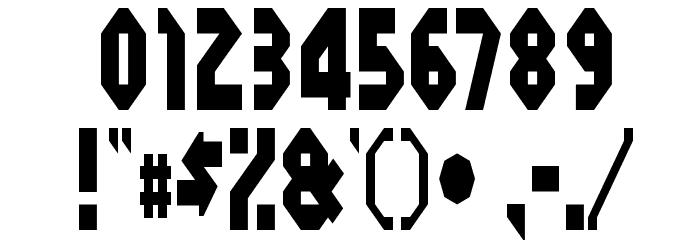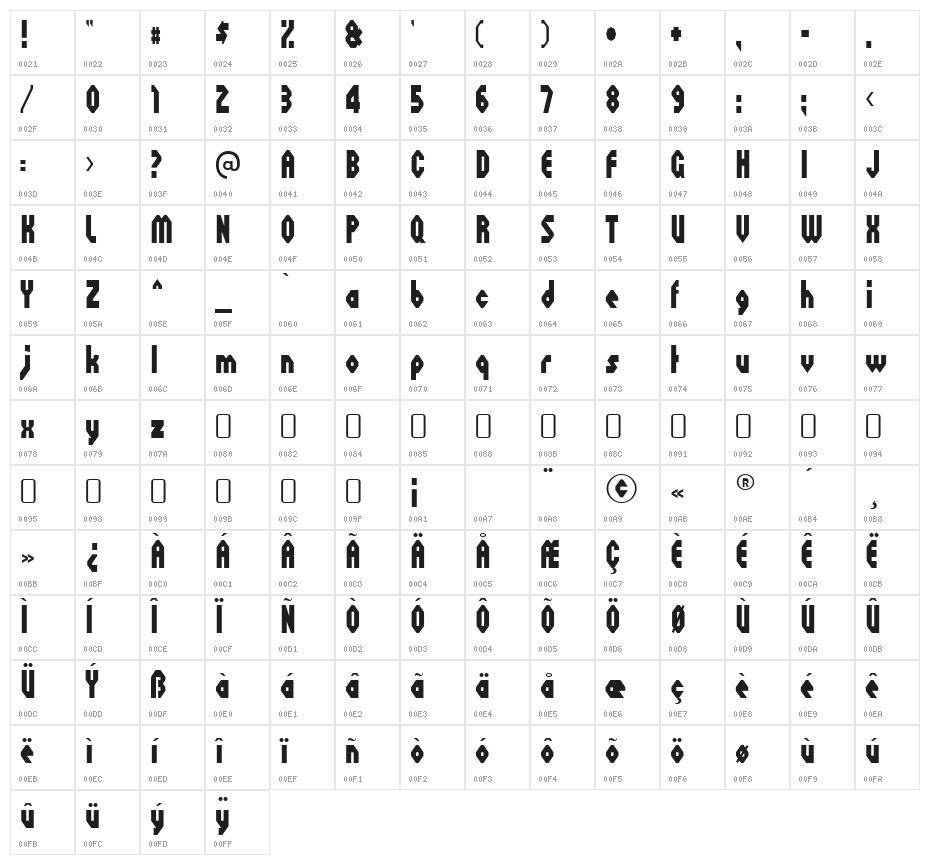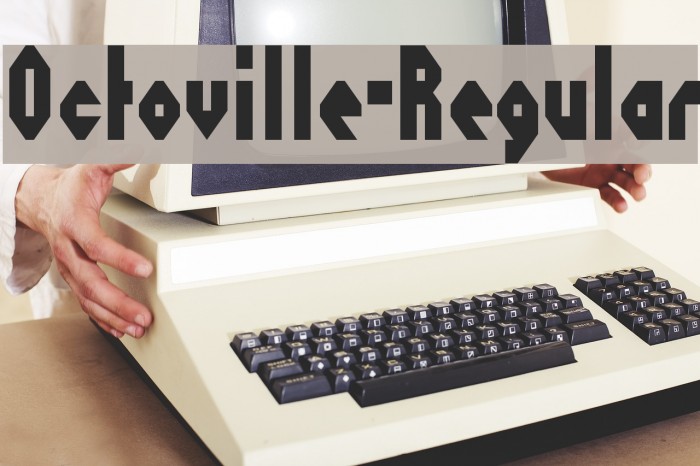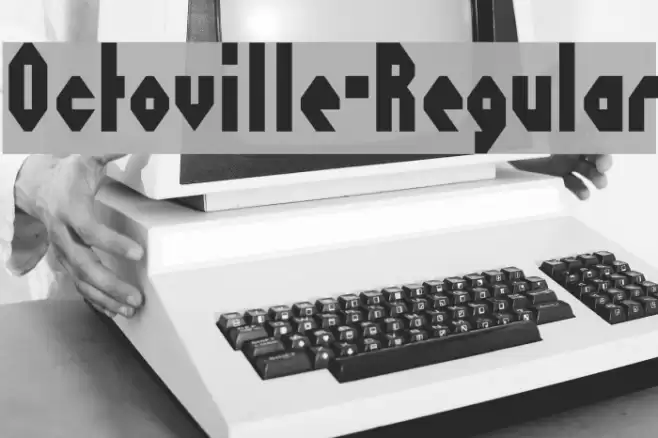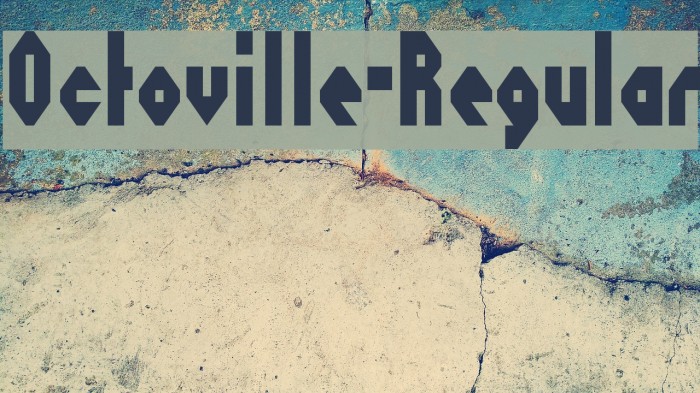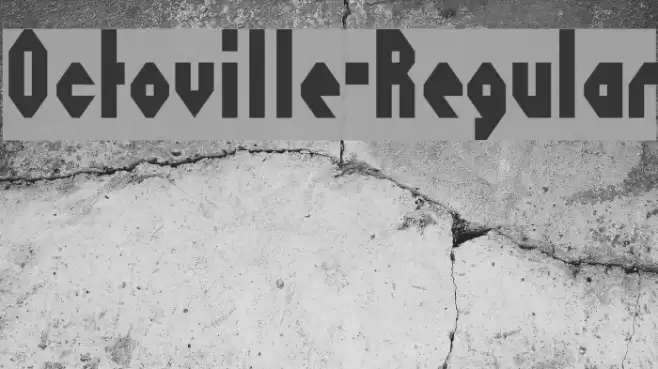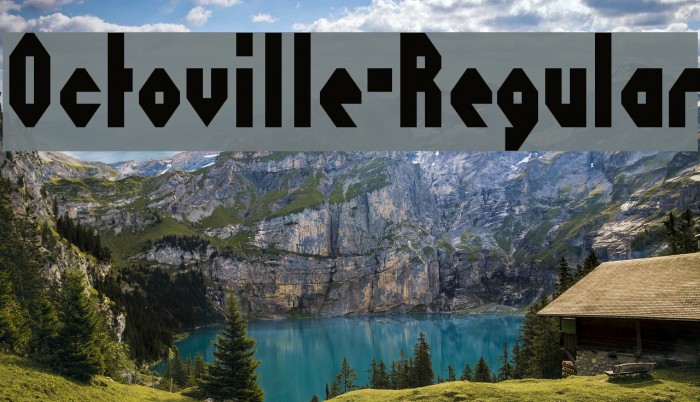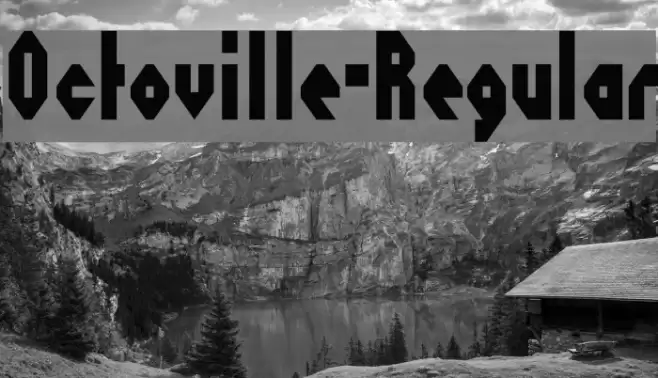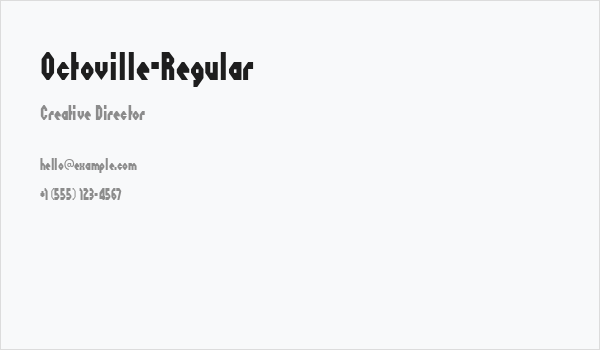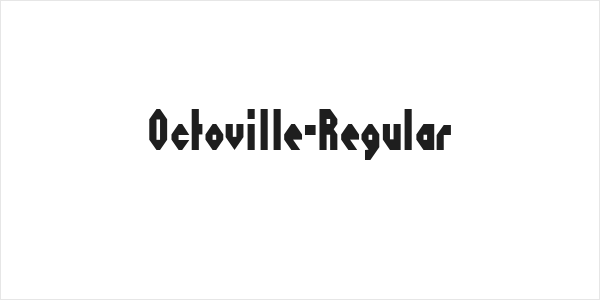
Octoville-Regular Font
Octoville-Regular Description
This font features a bold, geometric design with a modern and edgy appearance. The characters are constructed with sharp angles and straight lines, giving it a futuristic and industrial feel. The uppercase and lowercase letters maintain a consistent style, with a strong emphasis on symmetry and uniformity. The numerals and special characters follow the same design principles, ensuring a cohesive look across all glyphs. This font is highly distinctive and eye-catching, making it suitable for projects that require a strong visual impact.
Proposed ProjectsIdeal for branding, posters, album covers, and any project that requires a bold, modern aesthetic.